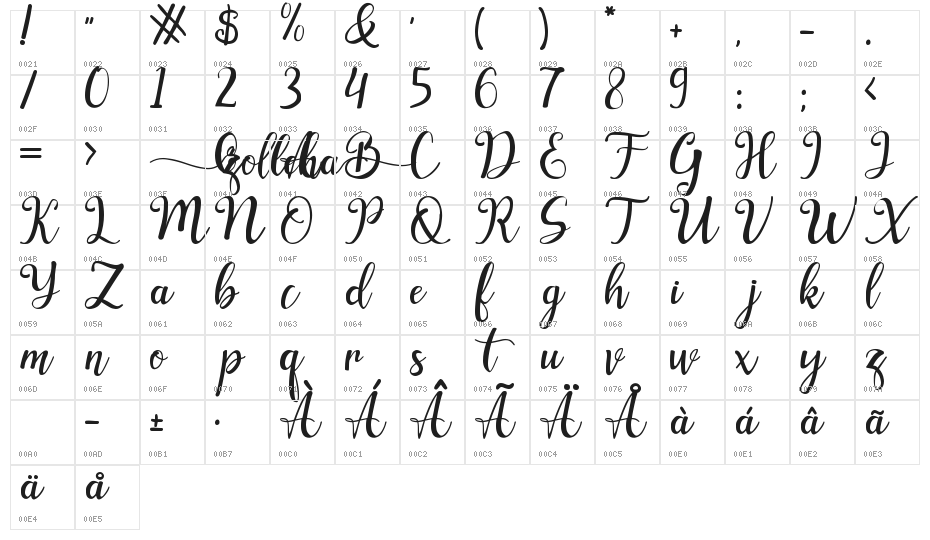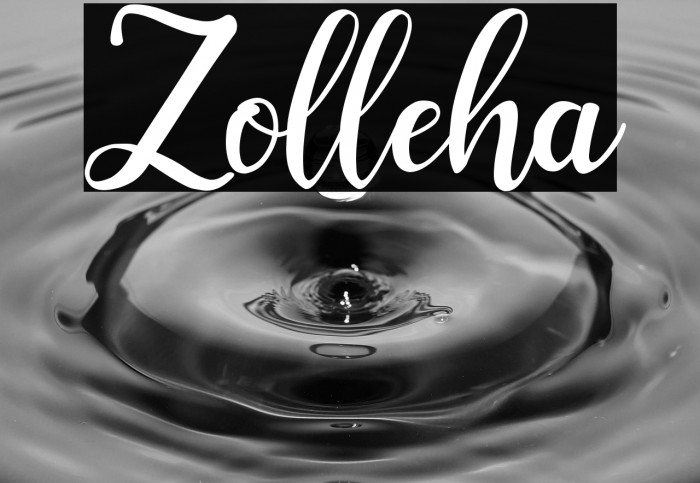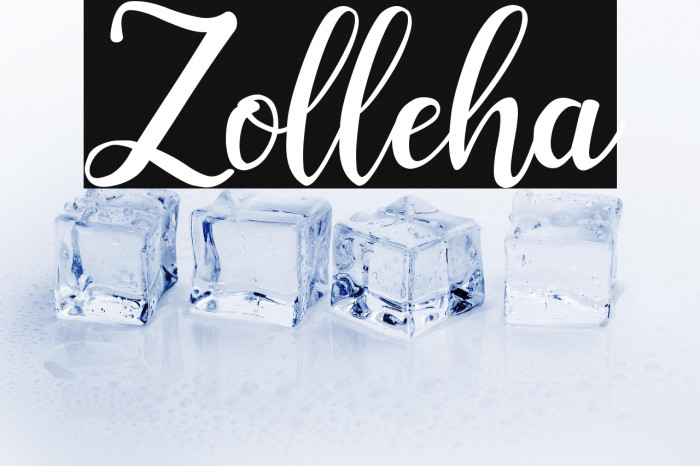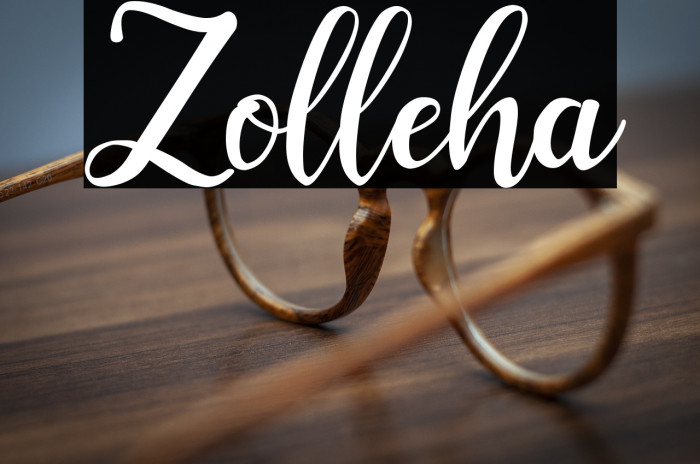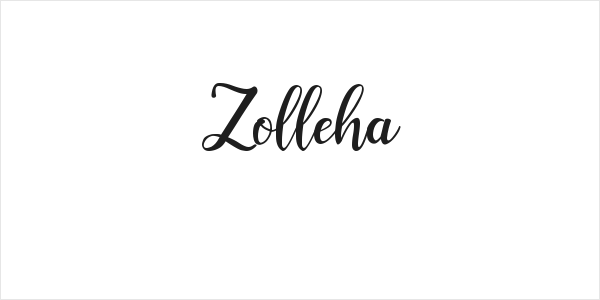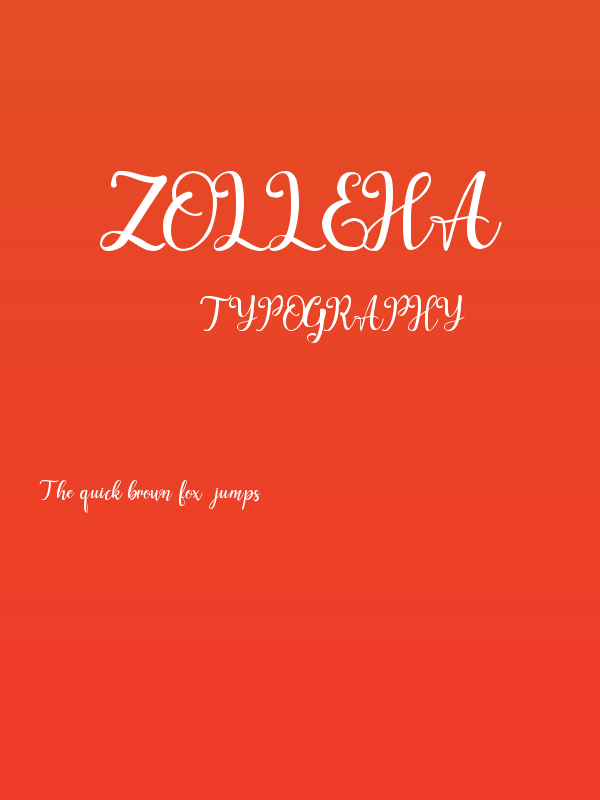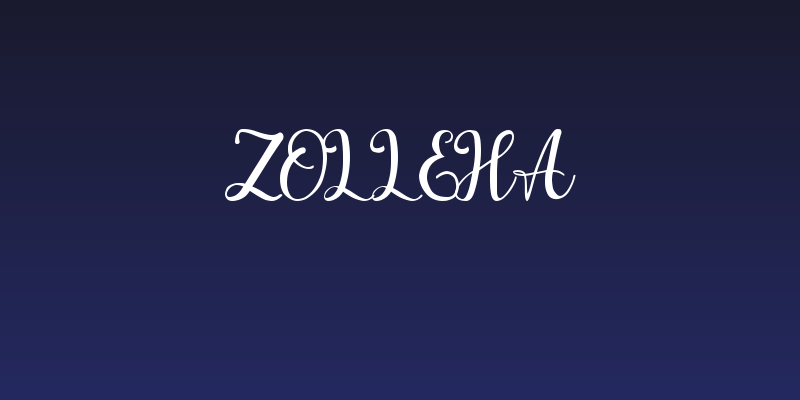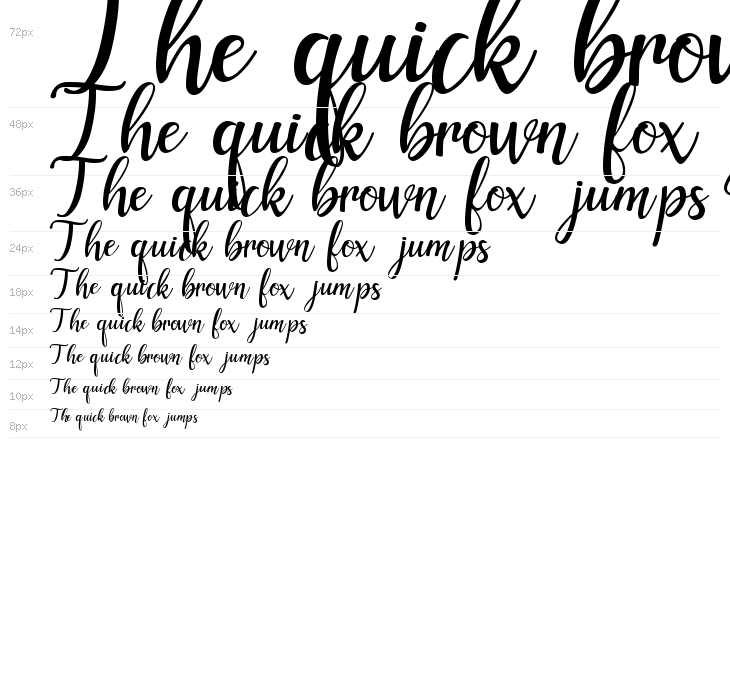
Zolleha Font
Zolleha Description
This font features a flowing, cursive style with elegant loops and swashes, giving it a sophisticated and artistic appearance. The uppercase letters are bold and expressive, while the lowercase letters maintain a consistent fluidity. Numbers and special characters are designed with the same attention to detail, ensuring a cohesive look across all text. The font's overall aesthetic is both modern and classic, making it versatile for various design needs.
| Overall Style | Elegant and Artistic |
| Use Case | Logos, Invitations, Decorative Text |